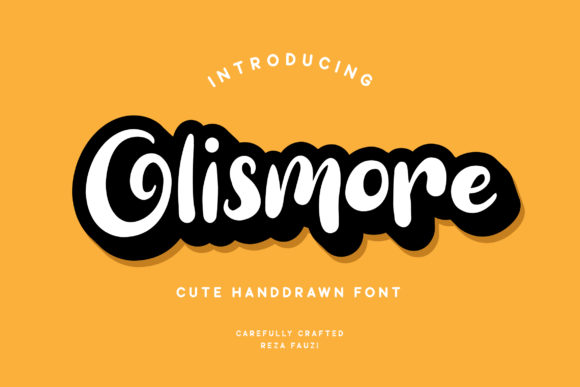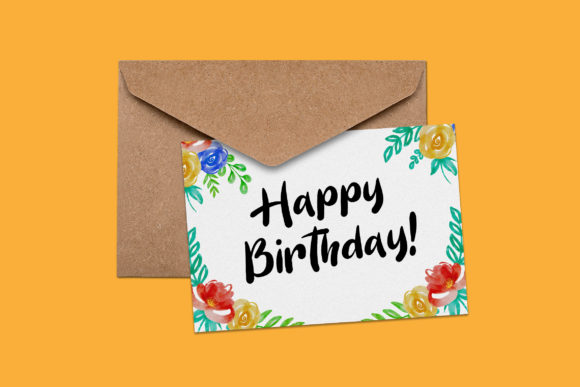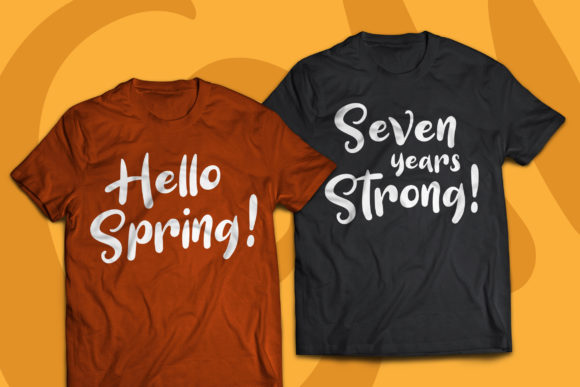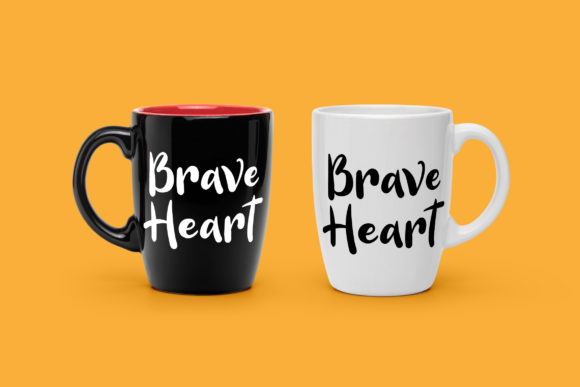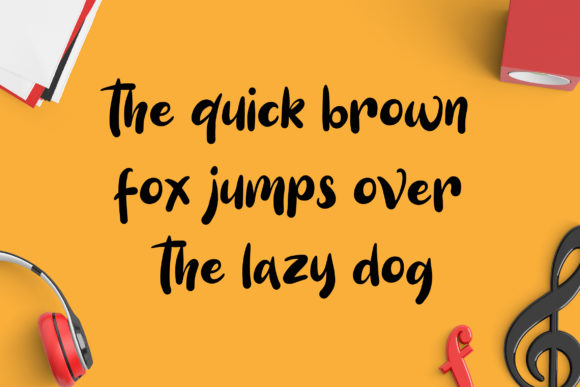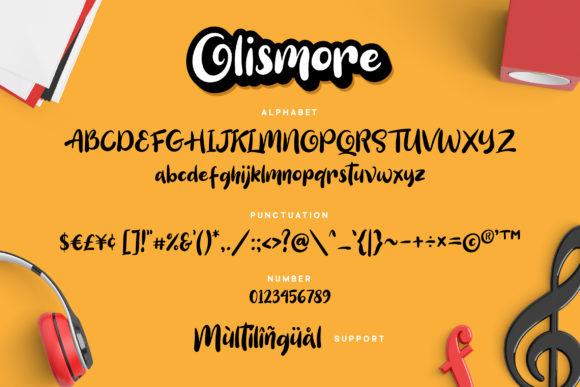
Olismore Font
About Olismore Font
Olismore is a unique handdrawn font, carefully crafted by hand.
The Olismore font is expressive, and works great as a type for branding, various design projects, packaging and much more.